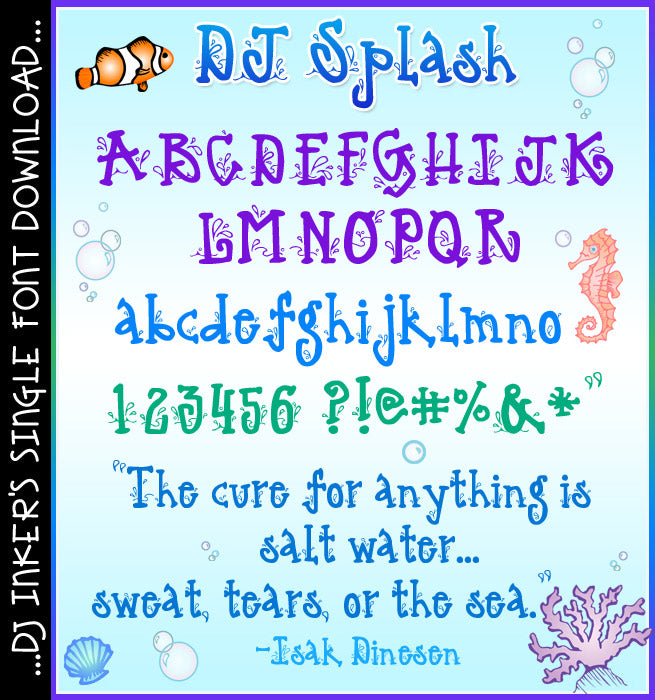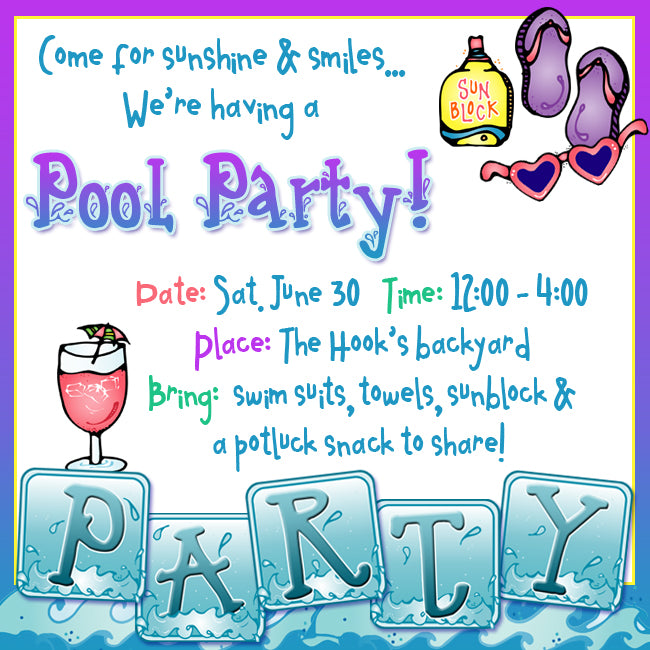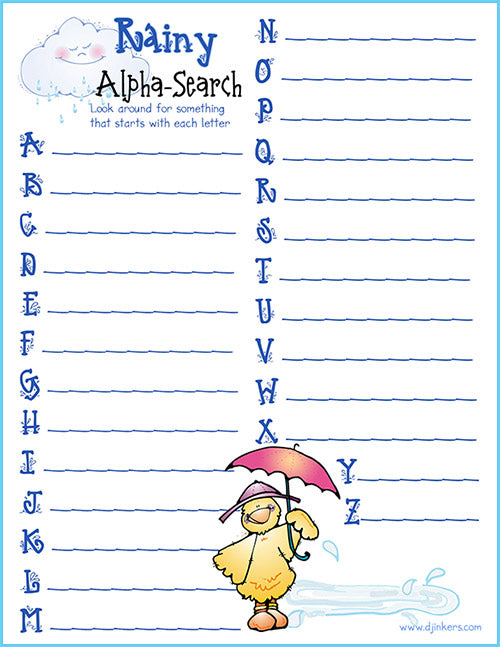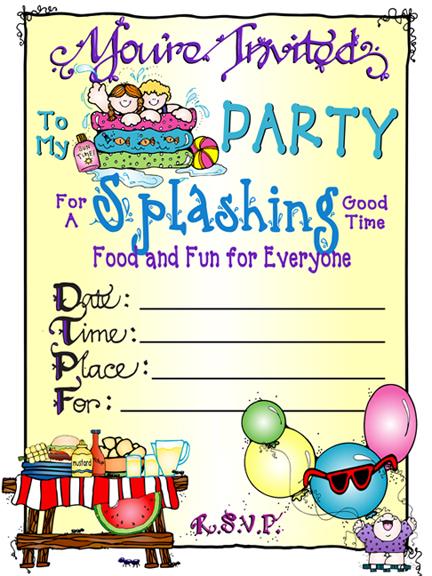
Make a splash on your projects with this fun water font by DJ Inkers
DJ Splash Font Download
Make a splash on your projects with this fun water font by DJ Inkers
DJ Splash Font Download
Make a splash on your projects with the coolest water font ever!  Perfect for beaches, baths, pools, boating, rain & more... our refreshing DJ Splash font will have you swimming in smiles. This font is great for headlining your projects, so it looks best in larger sizes. Try typing in cool colors for water or rainbow for paint.